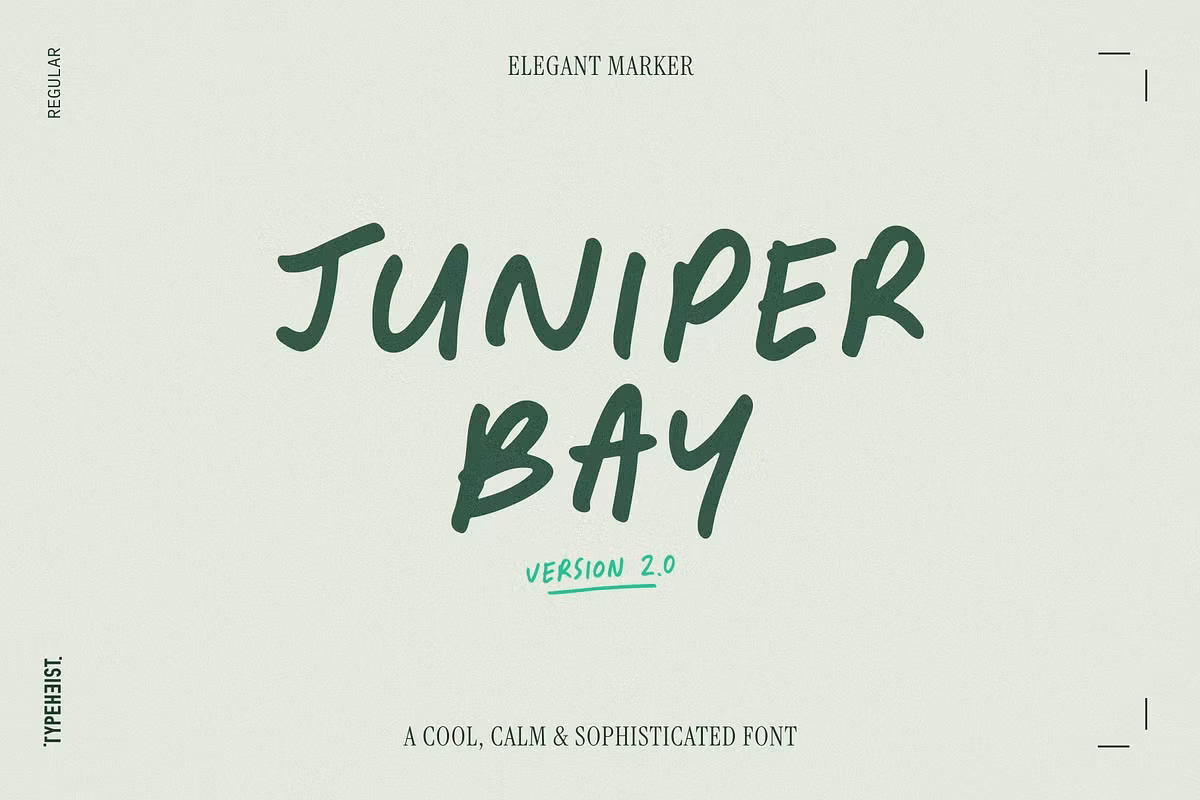
Juniper Bay Font Free Download is a soft and stylish handwritten script typeface that evokes a breezy, coastal charm with a modern twist. Featuring smooth curves, fluid strokes, and a relaxed, elegant feel, Juniper Bay is perfect for branding, wedding invitations, lifestyle blogs, product packaging, and social media graphics that need a personal, graceful touch.
Carefully crafted to mimic natural handwriting, Juniper Bay Font Free Download offers an effortless, sophisticated look. Its flowing baseline and organic rhythm make it especially ideal for signature-style logos, feminine branding, or anything that calls for a human, handwritten feel.
Pair Juniper Bay with minimalist sans-serifs or light serif fonts to create beautiful contrast in your typography. Whether you’re working on a boho-themed brand, dreamy event invites, or chic Instagram content, this font brings warmth and personality to every project.